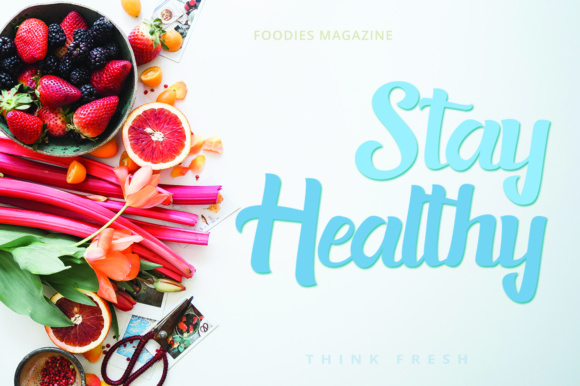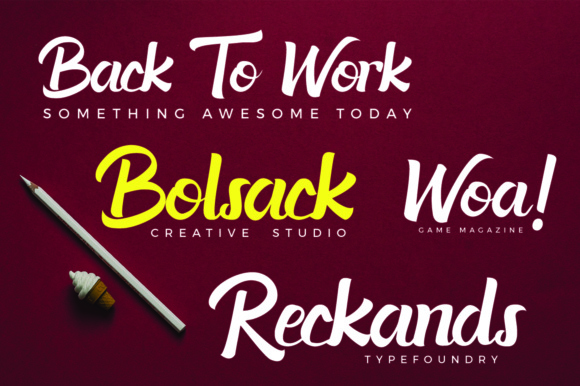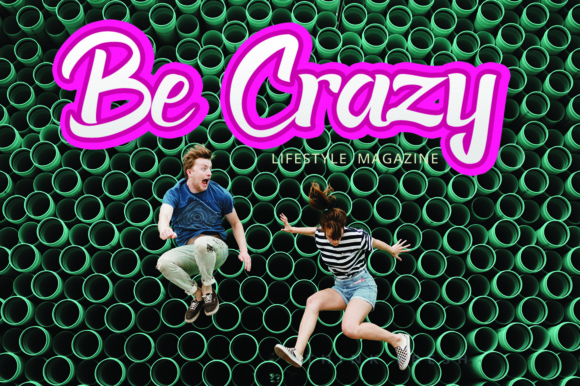
Acknesia Font
About Acknesia Font
The Acknesia is a hand lettered script font with a clear style and dramatic movements. Its big, bold letters are great for logotypes, and function well in headlines and displays.